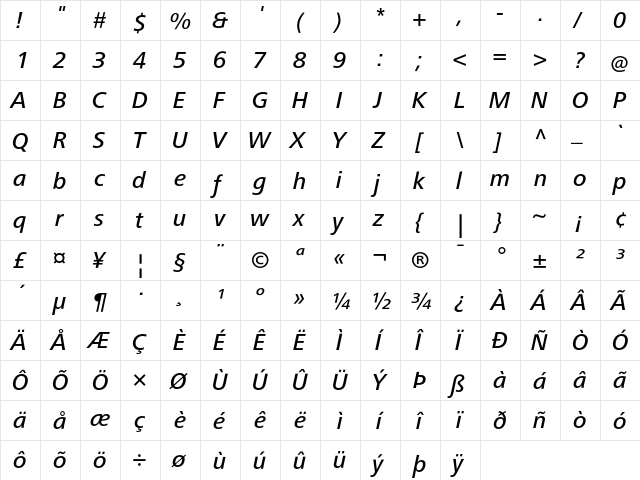
FrutigerNextLT Medium Italic Font Preview
FrutigerNextLT Medium Italic
FrutigerNextLT Medium Italic Font Details
| Style | Medium Italic |
Design Context for FrutigerNextLT Typeface
FrutigerNextLT takes a measured approach to typography — its balanced proportions and neutral character make it a reliable workhorse for both digital and print work. The dynamic lean of this cut emphasises speed and emphasis in any layout.